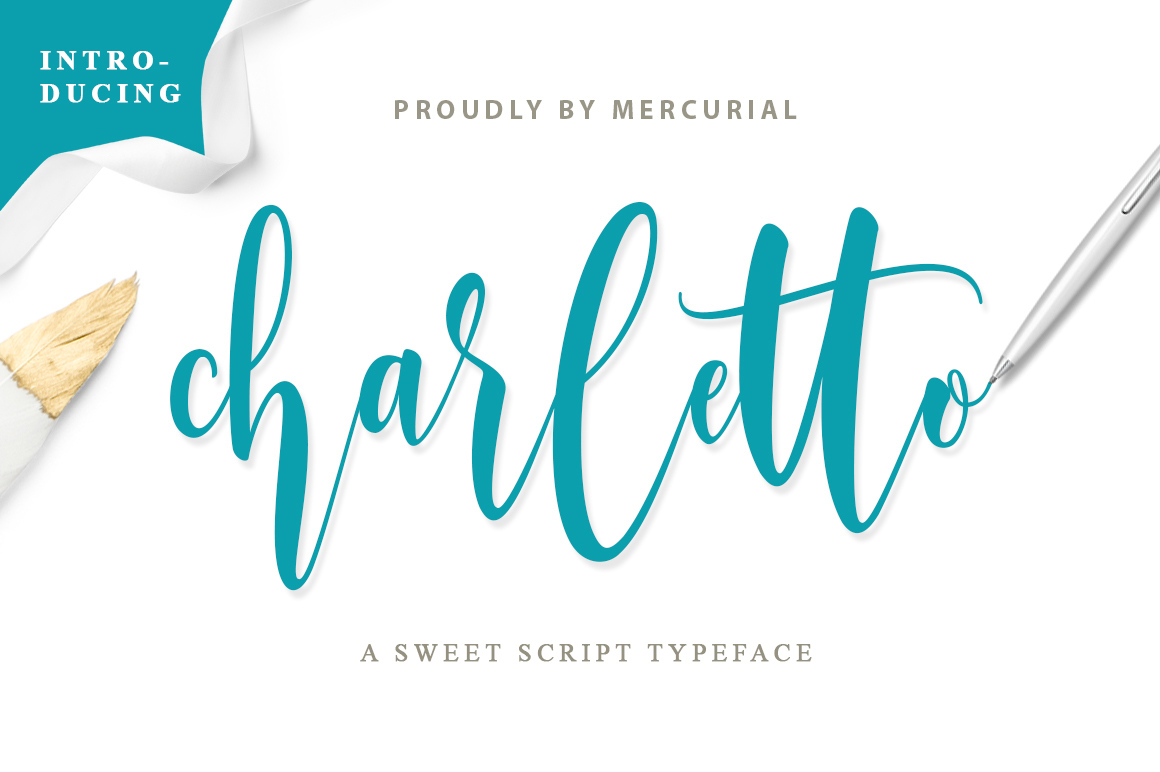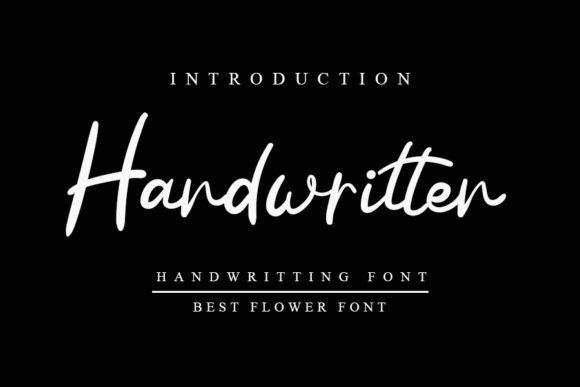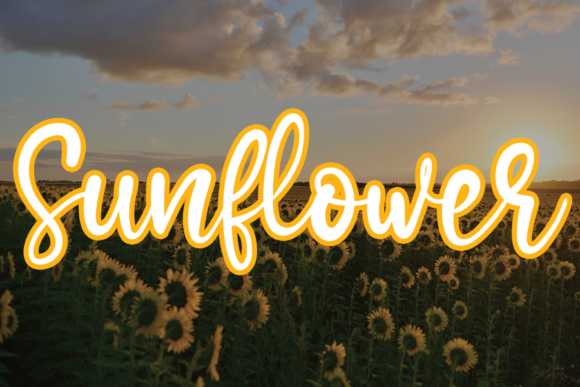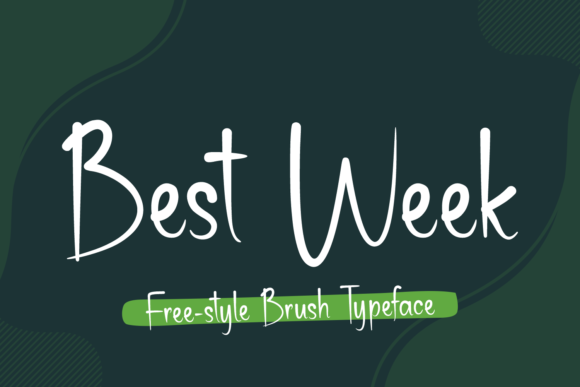
29 Trendy Handwritten Fonts for Social Media Graphics
Handwritten Typography & Social Media Design
Give Instagram posts, Pinterest graphics, stories, quotes, product promotions, and branded content a more personal feel with these handwritten and script fonts from Creative Fabrica.
Handwritten typography can make polished graphics feel more personal, approachable, and memorable. The right script can add warmth to a quote, personality to a product launch, or a signature-style finish to a brand post.
How to Choose a Handwritten Font for Social Media
The best handwritten font depends on the mood you want your graphic to communicate. Casual scripts can make a quote feel friendly and relaxed, while elegant handwriting works better for fashion, beauty, lifestyle brands, and premium product content.
For social media, readability matters just as much as personality. Decorative scripts can look beautiful in a large headline but become difficult to read when reduced to a small phone screen.
When choosing a handwritten font, consider the tone of your content, the amount of text in the design, and how the typeface works alongside your existing brand fonts. A good handwritten font should add personality without making the graphic harder to understand.
29 Trendy Handwritten Fonts
From casual handwriting and playful scripts to elegant signatures and textured lettering, these 29 fonts offer a range of styles for social media graphics. Use them for headlines, quotes, branding, product promotions, Instagram Stories, Pinterest graphics, and more.
01 · Minimal Handwriting
Simple Handwritten
Simple Handwritten is a clean, monoline-style handwriting font with a personal signature-like character. Its restrained appearance makes it especially useful when you want a graphic to feel warm without becoming overly decorative.
02 · Cheerful Script
Sunflower
Sunflower brings a brighter, more playful handwritten personality to social graphics. It works particularly well when the goal is to make typography feel casual, optimistic, and approachable.
03 · Natural Handwriting
Handwritten — asmunin78
This handwritten style is a good choice when you want graphics to retain an authentic, informal feeling. It can work as a headline font or as a handwritten accent alongside a cleaner sans serif.
04 · Handmade
Handmade — salma studio
Handmade gives social graphics a crafted, human quality. It is a useful direction for content where perfectly geometric typography would feel too formal or corporate.
05 · Popular Script
Best Week
Best Week has a relaxed script personality that feels naturally suited to social content. Its casual character makes it easy to use for short messages, quotes, announcements, and branded graphics.
06 · Modern Calligraphy
Charletto
Charletto combines a fresh script appearance with handmade calligraphy details. It has enough personality for a headline while remaining flexible for social media branding and promotional graphics.
07 · Casual Handwriting
Handmade — salma studio
This second Handmade option from salma studio brings another take on the hand-drawn aesthetic. It is useful when you want a more relaxed visual voice in social posts and branded content.
08 · Friendly Script
Bestie
Bestie has a sweet cursive personality that can instantly soften a social media graphic. The flowing letterforms work particularly well when you want a post to feel friendly, personal, and expressive.
09 · Rustic Handwriting
Farmhouse Handwritten
Farmhouse Handwritten brings a warm, informal quality to graphics. It is especially useful for lifestyle content where you want the typography to feel approachable and handcrafted.
10 · Expressive Script
Heartbeat
Heartbeat is a natural fit for graphics that need movement and personality. Use it for short phrases where the handwritten treatment can become part of the visual composition.
11 · Warm & Personal
Home Font
Home Font has a cozy, personal direction that works especially well for lifestyle-oriented social media. It can make simple statements feel more intimate and welcoming.
12 · Elegant Script
Giordano Gold
Giordano Gold is particularly useful when you want a more polished handwritten direction. Its elegant letterforms can create a refined look for fashion, beauty, lifestyle, and premium social content.
13 · Flowing Handwriting
Andirla
Andirla has a smooth, flowing handwritten style with varied letterforms and a decorative feel. It is versatile enough for bold social headlines and more elegant branding applications.
14 · Signature Style
Jackson Signature
Jackson Signature takes the handwritten aesthetic toward a cleaner, signature-style direction. This makes it especially practical for personal branding, logos, social handles, and creator-focused graphics.
15 · Cute Handwriting
Fairy Cute
Fairy Cute takes handwritten typography in a softer and more playful direction. It is useful when the goal is to make social graphics feel cheerful, youthful, and approachable.
16 · Classic Script
Muthiara
Muthiara has a timeless script quality that works especially well when you want a social graphic to feel elegant rather than casual. Its flowing character can add a polished handwritten accent to a design.
17 · Clean Handwriting
Straight
Straight offers a more restrained handwritten direction. It can be useful when you want the human quality of handwriting while keeping the overall graphic relatively clean.
18 · Hand Lettering
Simple Handlettering
Simple Handlettering is a practical option for social graphics where the handwritten effect needs to remain easy to read. It can add personality without overwhelming the rest of the composition.
19 · Chalk Style
Vintage Chalk
Vintage Chalk changes the texture of handwritten typography completely. Instead of smooth digital lettering, it gives graphics a tactile, chalkboard-inspired character.
20 · Natural Script
Handwriting — Inermedia STUDIO
This handwritten style is a good choice when you want social graphics to feel genuinely handwritten rather than overly polished. It can bring an informal, human touch to short messages and content-led designs.
21 · Casual Script
Handwritten — K_IN Studio
A casual handwritten option for graphics that should feel friendly and personal. It can work particularly well when typography is used as an accent rather than the main visual.
22 · Friendly Handwriting
Handwriting — andikastudio
This handwritten style is a good choice for content where warmth and authenticity matter more than formal polish. It can give short social messages a more personal visual voice.
23 · Classic Handwriting
The Handwritten
The Handwritten keeps the visual language straightforward and versatile. It can be paired with a clean sans serif to create a simple hierarchy for social media graphics.
24 · Authentic Writing
Writing
Writing gives social content a direct pen-on-paper quality. It is a useful alternative to highly polished scripts when you want the graphic to feel more authentic and informal.
25 · Bold Script
Sunchic
Sunchic is a bold handwritten script with enough presence to work as a headline. Its energetic character makes it especially useful when a social graphic needs typography that can stand on its own.
26 · Fashion Brush Script
Mistrully Script
Mistrully Script combines handwritten energy with a fashion-led brush treatment. Its expressive letterforms can give short social headlines a distinctive and energetic finish.
27 · Trendy Handwriting
Again
Again is a useful option for modern social graphics that need a handwritten accent without feeling overly formal. It works especially well in short headlines and layered typography.
28 · Relaxed Handwriting
Timeout
Timeout has a relaxed visual personality that fits social content designed to feel informal and easygoing. It can work particularly well with lifestyle photography and casual messaging.
29 · Delicate Handwriting
Barista
Barista is a delicate handwritten font with a versatile, everyday character. It can bring a personal touch to social media posts while remaining suitable for practical branding and promotional graphics.
How to Use Handwritten Fonts in Social Media Graphics
1. Keep the handwritten font short.
Scripts are usually strongest when used for a short headline, phrase,
signature, or highlighted word rather than an entire paragraph.
2. Pair it with a clean sans serif.
A simple sans serif gives the handwritten type room to breathe and
keeps the overall graphic readable.
3. Make readability your first test.
Always check the design at the size people will actually see it on
their phones. A beautiful script that becomes unreadable at small
sizes is not a useful social-media font.
4. Use handwriting as a visual accent.
One handwritten phrase can often create more personality than using
the same script throughout the entire design.
5. Match the font to the content.
A playful handwritten font may be perfect for a lifestyle post but
inappropriate for a serious business announcement. Typography should
reinforce the tone of the message.
Best Handwritten Fonts by Style
For elegant social graphics: Simple Handwritten, Giordano Gold, Muthiara, and Jackson Signature.
For casual content: Best Week, Charletto, Bestie, and Andirla.
For lifestyle brands: Sunflower, Farmhouse Handwritten, Home Font, and Barista.
For fashion and beauty: Giordano Gold, Mistrully Script, Bestie, and Sunchic.
For textured graphics: Vintage Chalk is the standout choice.
FAQ About Handwritten Fonts for Social Media
Are handwritten fonts good for Instagram posts?
Yes. Handwritten fonts can make Instagram graphics feel more personal and distinctive. They work especially well for short quotes, headlines, announcements, product promotions, and branded accents.
What is the best handwritten font for social media?
There is no single best choice. For an elegant look, try Simple Handwritten or Giordano Gold. For a casual style, Best Week or Charletto are strong options. For a more expressive fashion feel, Mistrully Script can work well.
Should I use handwritten fonts for entire posts?
Usually, no. Handwritten fonts tend to work best as display or accent typography. Pairing them with a readable sans serif usually creates a stronger hierarchy.
Which handwritten fonts are easiest to read?
Cleaner monoline and relatively simple handwriting styles are generally easier to read at smaller sizes. Always test the actual phrase in your design before publishing.
Can handwritten fonts make a brand look more personal?
Yes. A handwritten typeface can suggest a human, personal, or crafted quality, especially when used selectively alongside a more neutral brand font.